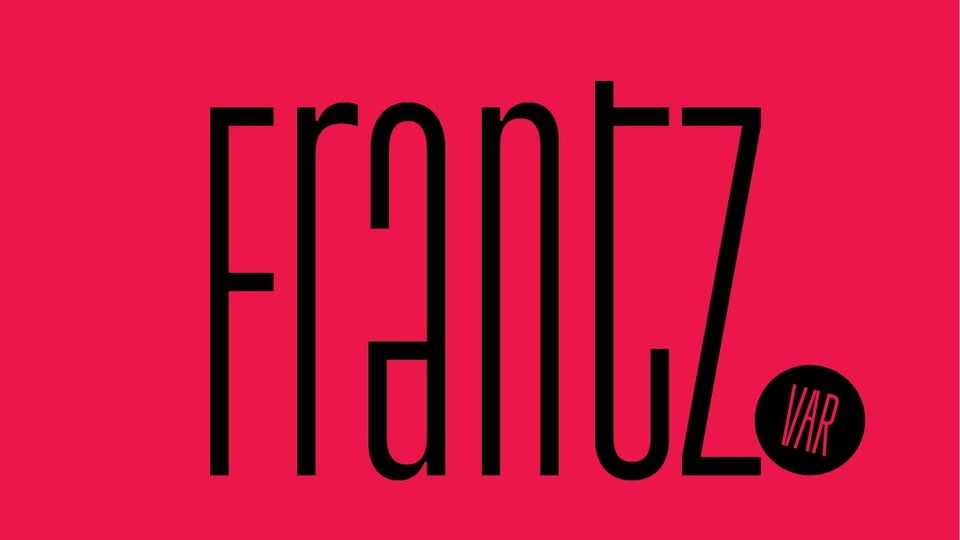
Download TT Frantz font, an experimental variable typeface distinguished by its slimness and lightness. In TT Frantz, you can find small references to the art deco aesthetics, which are expressed in significantly lowered or, conversely, heightened waist of the letters.
Designer: TypeType Team